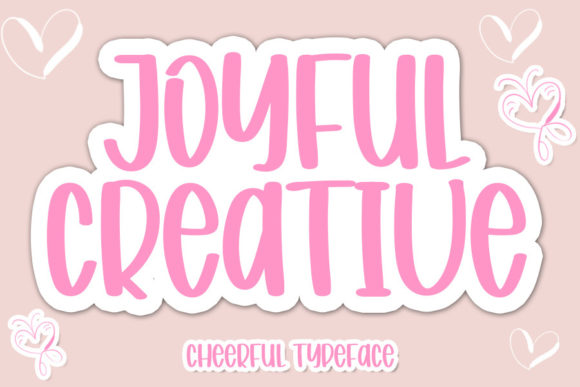
Unleash the Charm of Joyful Creative: Where Whimsy and Boldness Intersect
In the realm of creativity, there exists a font that radiates positivity, captivating hearts with its cheerful appeal. Introducing Joyful Creative, a display font that dances off the screen with its playful charm and undeniable elegance.
A Masterpiece of Design, a Symphony of Aesthetics
Joyful Creative is the brainchild of K_IN Studio, a renowned design house renowned for their unwavering commitment to crafting fonts that ignite inspiration. Each letterform in this display font is meticulously chiseled, exuding a unique personality that harmoniously blends whimsy and boldness.
The result is a typographic symphony that dances across the page, captivating readers with its enchanting curves and playful strokes. With Joyful Creative, your words will leap off the screen, demanding attention and leaving an indelible mark on the hearts of your audience.
A Versatile Gem: From Business Writing to Personal Creations
Whether you're a seasoned designer seeking to elevate your business writing or an artist seeking to infuse whimsy into your personal creations, Joyful Creative is your font of choice. Its versatility knows no bounds, effortlessly adapting to a myriad of projects, from enchanting book covers to eye-catching magazine layouts.